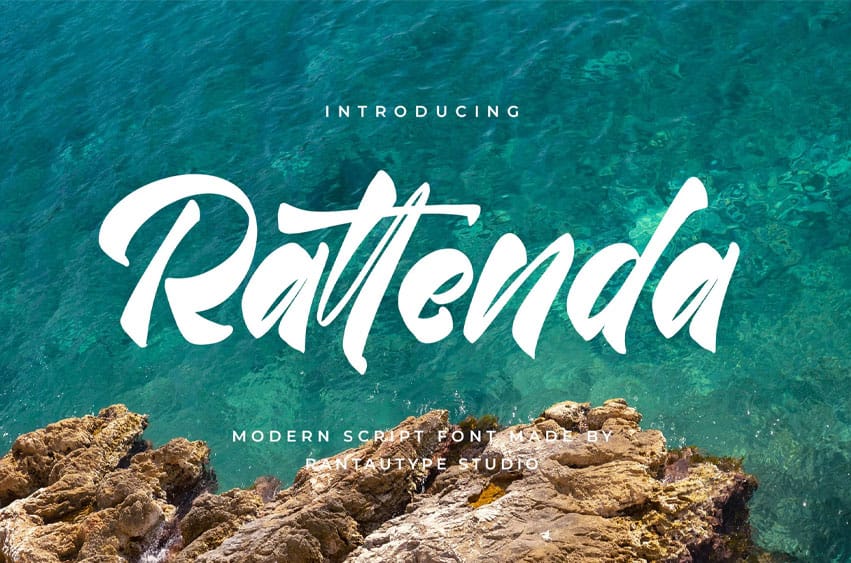
Rattenda Font is a modern script font with natural, hand-drawn strokes that feel both refined and relaxed, making every letter appear effortlessly stylish. Rattenda is a perfect choice for any creative endeavor, chic lifestyle design, such as logotype, advertisements, watermark on photography, stationery, branding project, display and magazine, invitation, corporate brand, product design, label, business project, and many other projects with a modern touch.